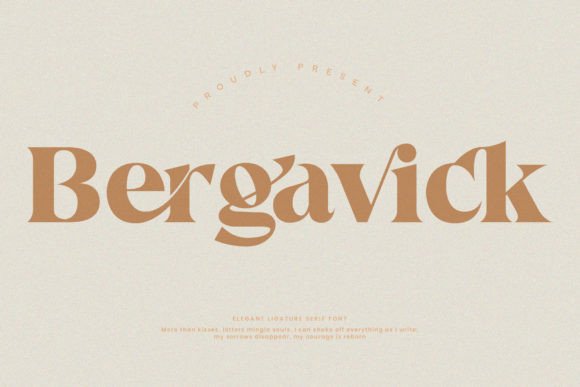
The Bergavick Font: A Modern Elegance for Your Creative Projects
First Impressions: What I Love About Bergavick ✨
The ‘Bergavick’ font is a neat series of letters that exudes modernity while maintaining an air of elegance. Here are a few things that I absolutely love about this font:
- ✅ Modern Impression: The font has a sleek, contemporary feel that makes it perfect for projects that require a fresh look.
- ✅ Elegant and Refined: Despite its modernity, ‘Bergavick’ carries an elegance that is hard to find in many contemporary fonts.
- ✅ PUA Encoded: Being PUA encoded means that accessing glyphs and swashes is a breeze, giving you more creative freedom.
- ✅ Versatile: Whether you’re working on a branding project, a craft, or simply a hobby, ‘Bergavick’ can adapt to your needs.
No font is perfect, and ‘Bergavick’ is no exception. Here are a few things to keep in mind:
- ⚠️ Limited Use in Body Text: While ‘Bergavick’ shines in headings and titles, it might not be the best choice for long body text due to its elegant and somewhat ornate nature.
- ⚠️ Requires OpenType Support: To fully utilize the font’s features, such as glyphs and swashes, you’ll need software that supports OpenType.
The Story Behind Bergavick
The ‘Bergavick’ font was designed with the intention of creating a typeface that embodies both modernity and elegance. The designer aimed to craft a font that could easily be used in luxury branding, high-end magazines, and creative projects that demand a refined aesthetic. The result is a versatile font that can adapt to various design needs while maintaining its unique charm.
In conclusion, the ‘Bergavick’ font is a beautiful addition to any designer’s toolkit. Its modern yet elegant design makes it perfect for a wide range of projects. With its support for OpenType features and PUA encoding, you’ll have plenty of creative freedom to make your designs stand out.